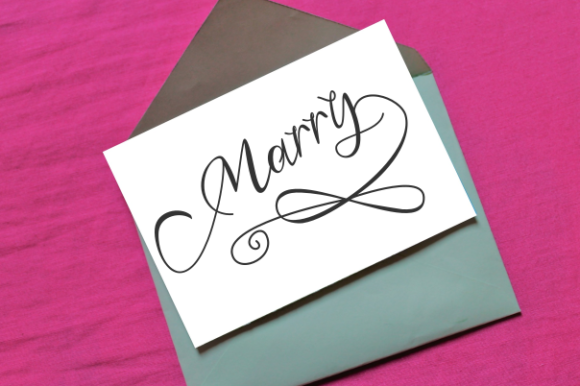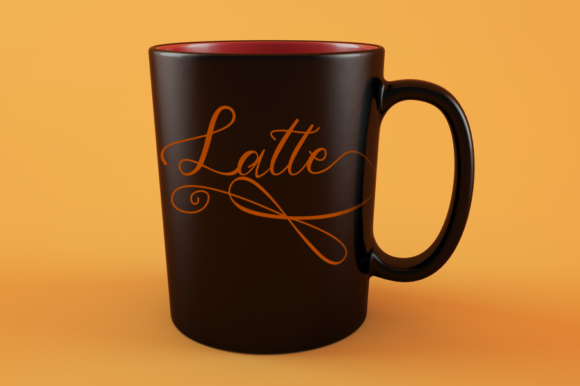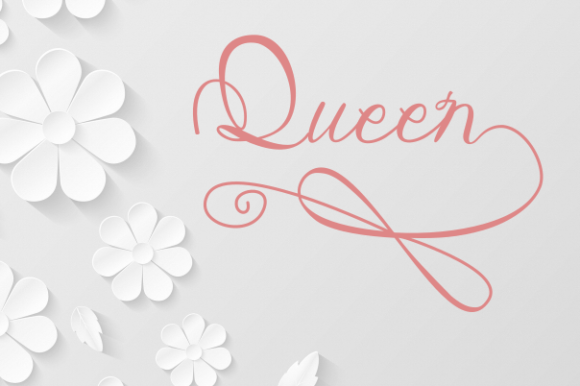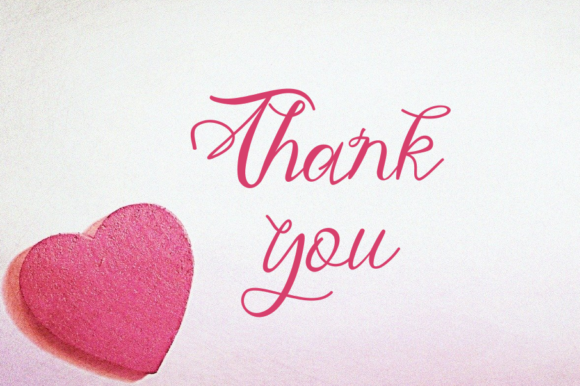
Home Font
About Home Font
Home is a beautiful script font. It features gorgeous swashes and alternates that will take your crafting projects to the next level!